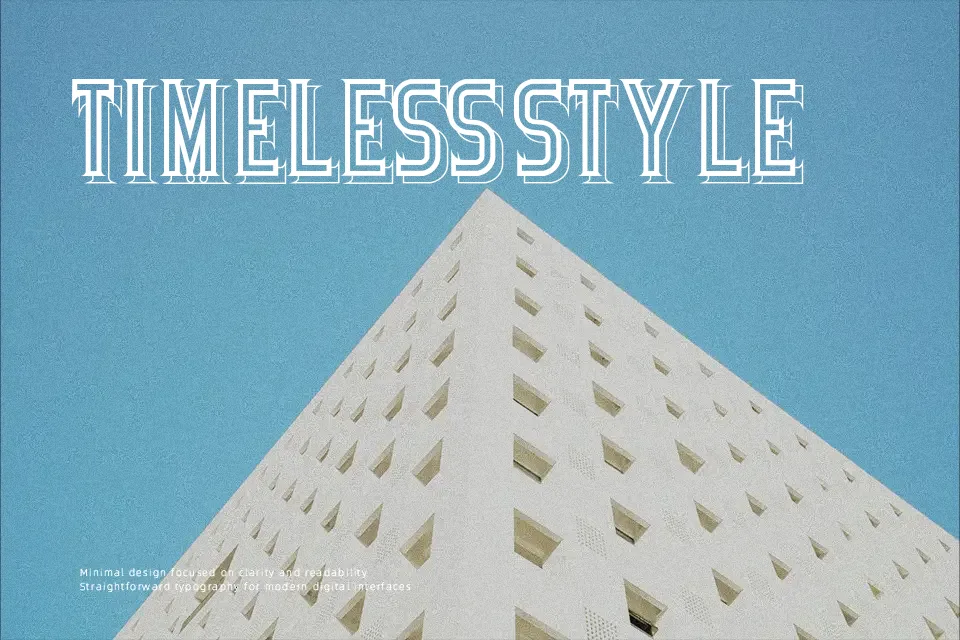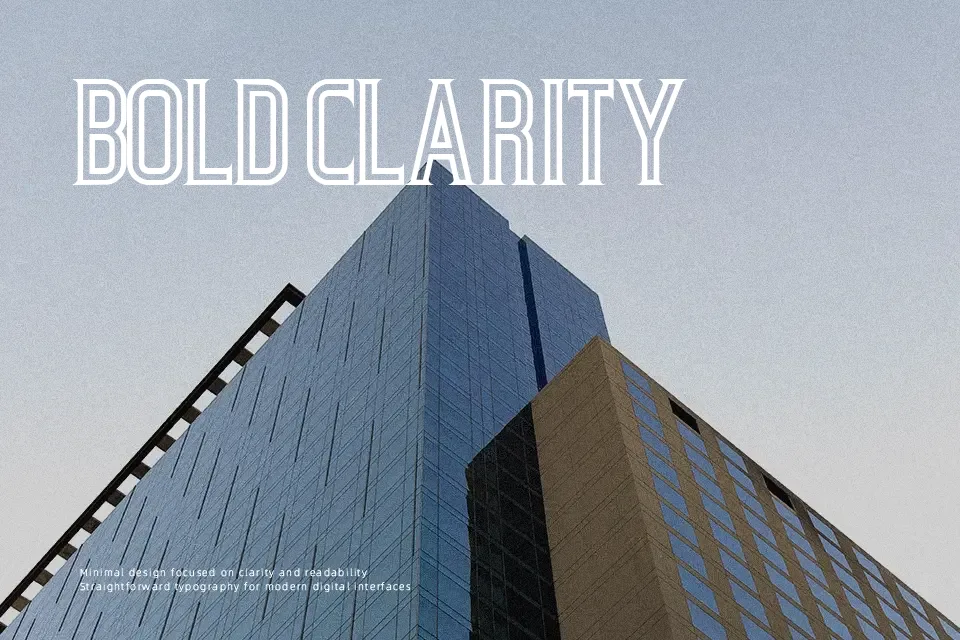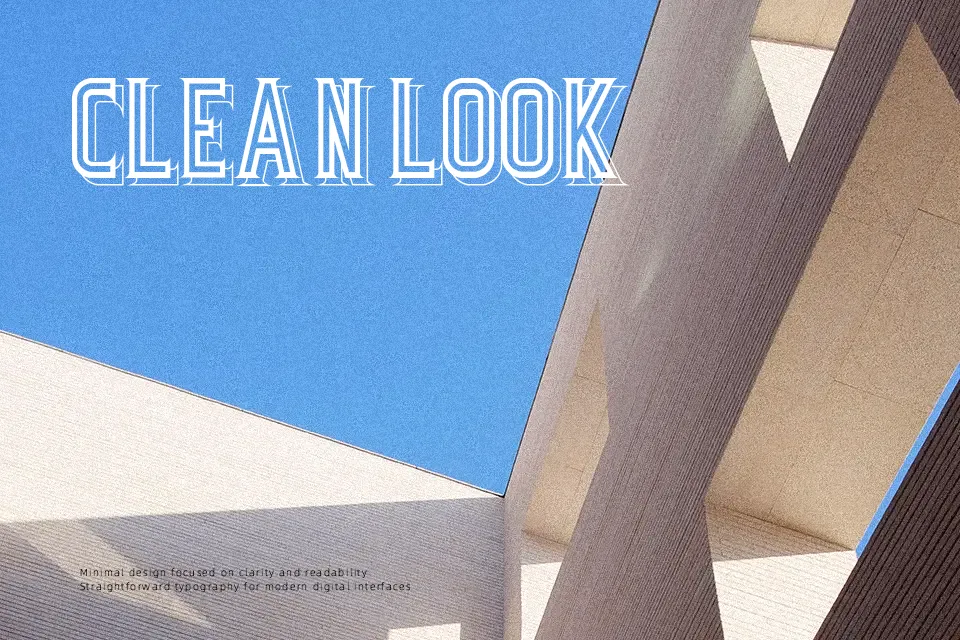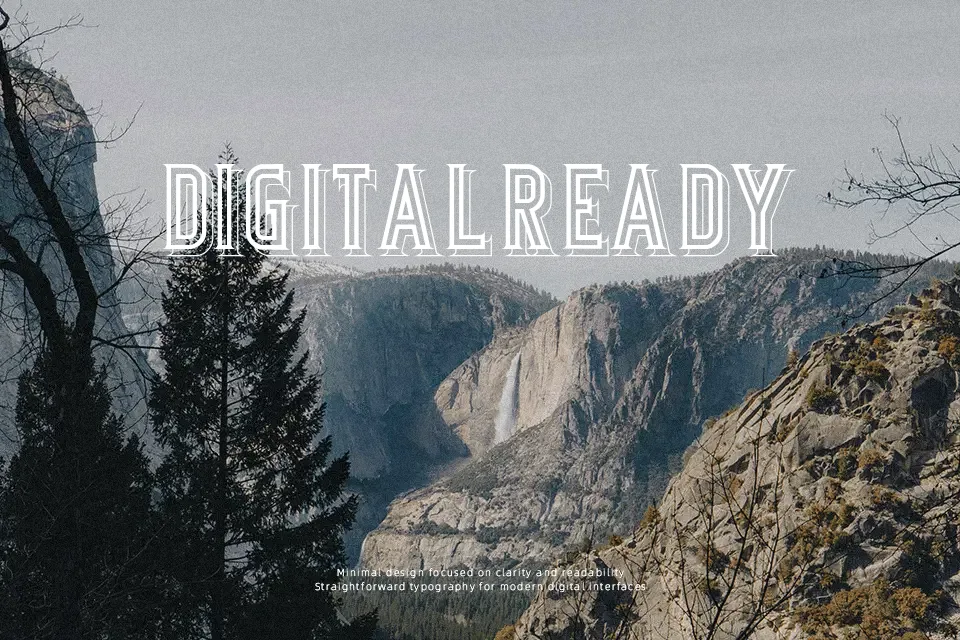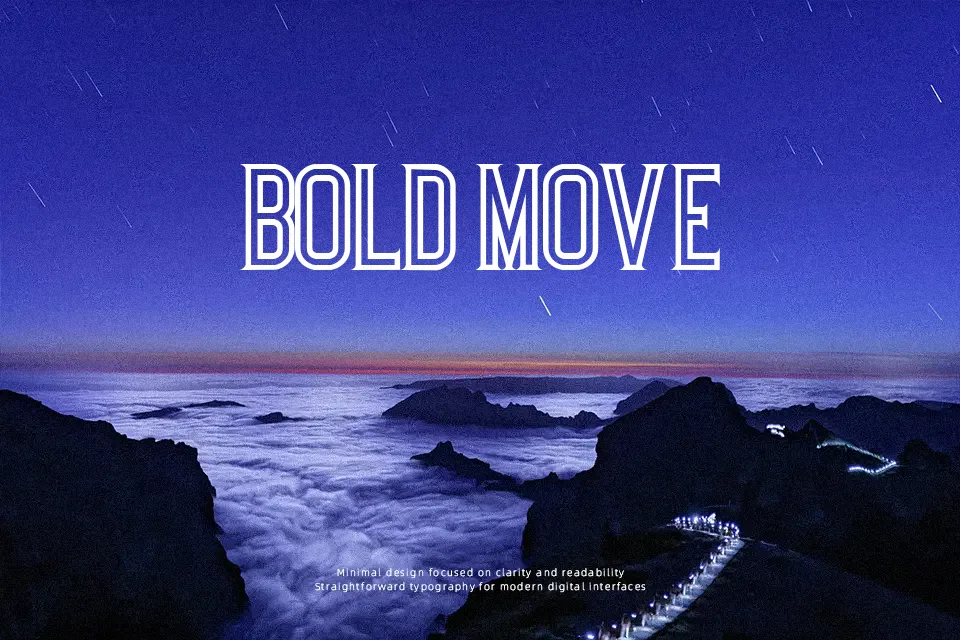
Bicycle Font
Designed by Gaut Fonts
Bicycle carries the kind of weathered charm you’d expect from old fairground signage — thick, ornate letterforms with a retro decorative structure and generous visual weight. It ships in two variants: a standard version and a fancier alternate with extra flourishes, giving designers some flexibility within the same nostalgic aesthetic. The strokes feel hand-crafted without being strictly handwritten, landing it firmly in the display category. It holds up well on poster headers, vintage-style event graphics, and merchandise prints where atmosphere matters. That said, it falls apart quickly at small sizes — intricate detailing becomes muddy below 24pt — and extended body copy is simply not what this font was designed for. If you need something readable at scale, look elsewhere.
Best For:- vintage cycling event posters
– retro-themed merchandise and t-shirt prints
– decorative headline treatment in editorial layouts
– nostalgic branding for themed café or shop signage
Not Ideal For:- body text or long-form reading contexts
– digital UI elements or mobile interfaces
– corporate or formal business documents
– small-size applications below 18–24pt
Perfect for advertising, branding, and headline, with a classic and decorative style.